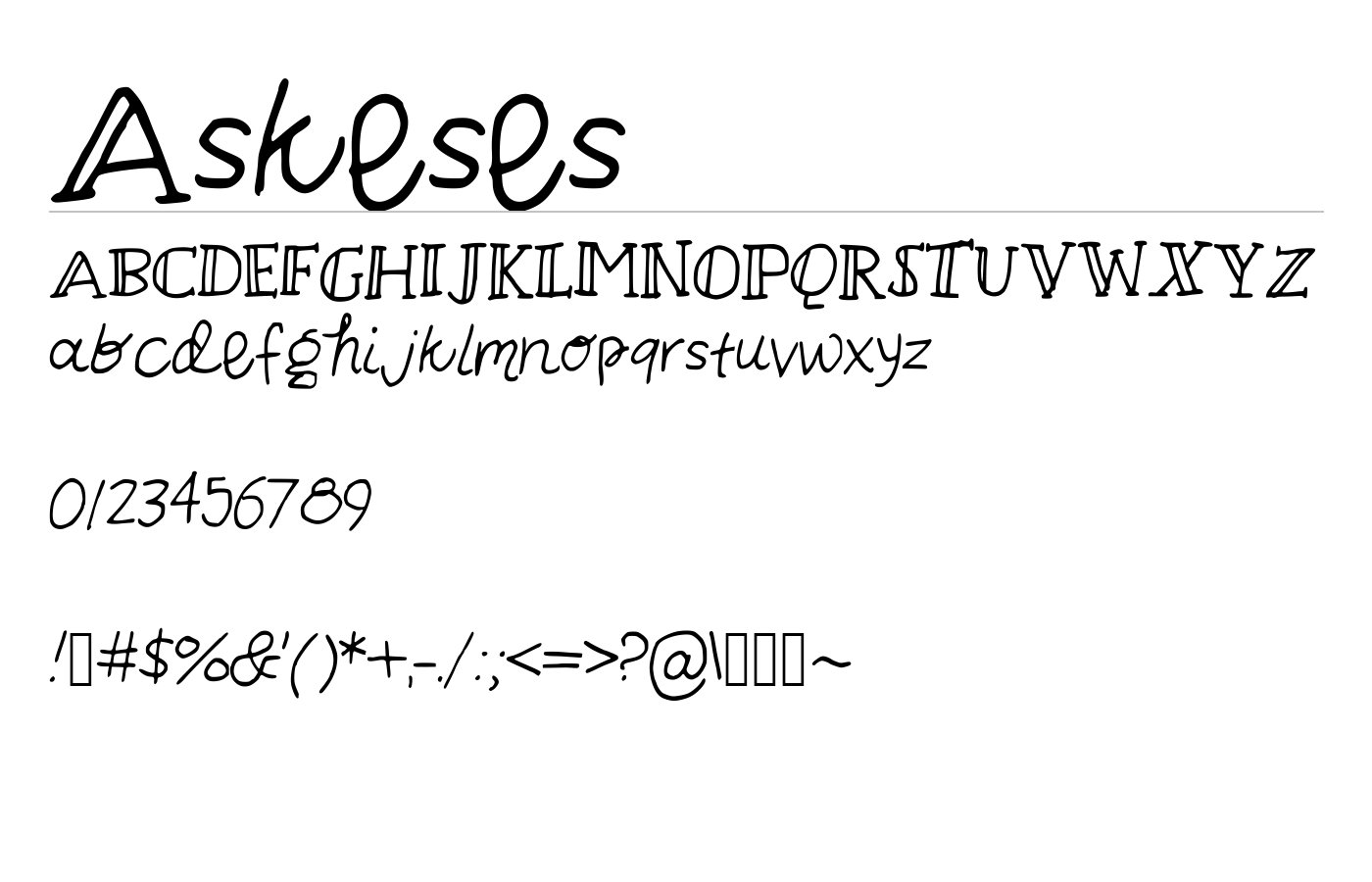
Askeses is a playful serif font with a hand-drawn, slightly whimsical style, featuring uneven stroke widths and irregular letterforms that give it a casual, artistic feel. Its mix of lightly structured uppercase and fluid lowercase characters makes it ideal for creative projects, children's books, and informal branding where a friendly and approachable tone is desired. The font’s unique personality shines in headlines, logos, and packaging, adding charm without sacrificing readability.
Askeses Font
About Askeses Font